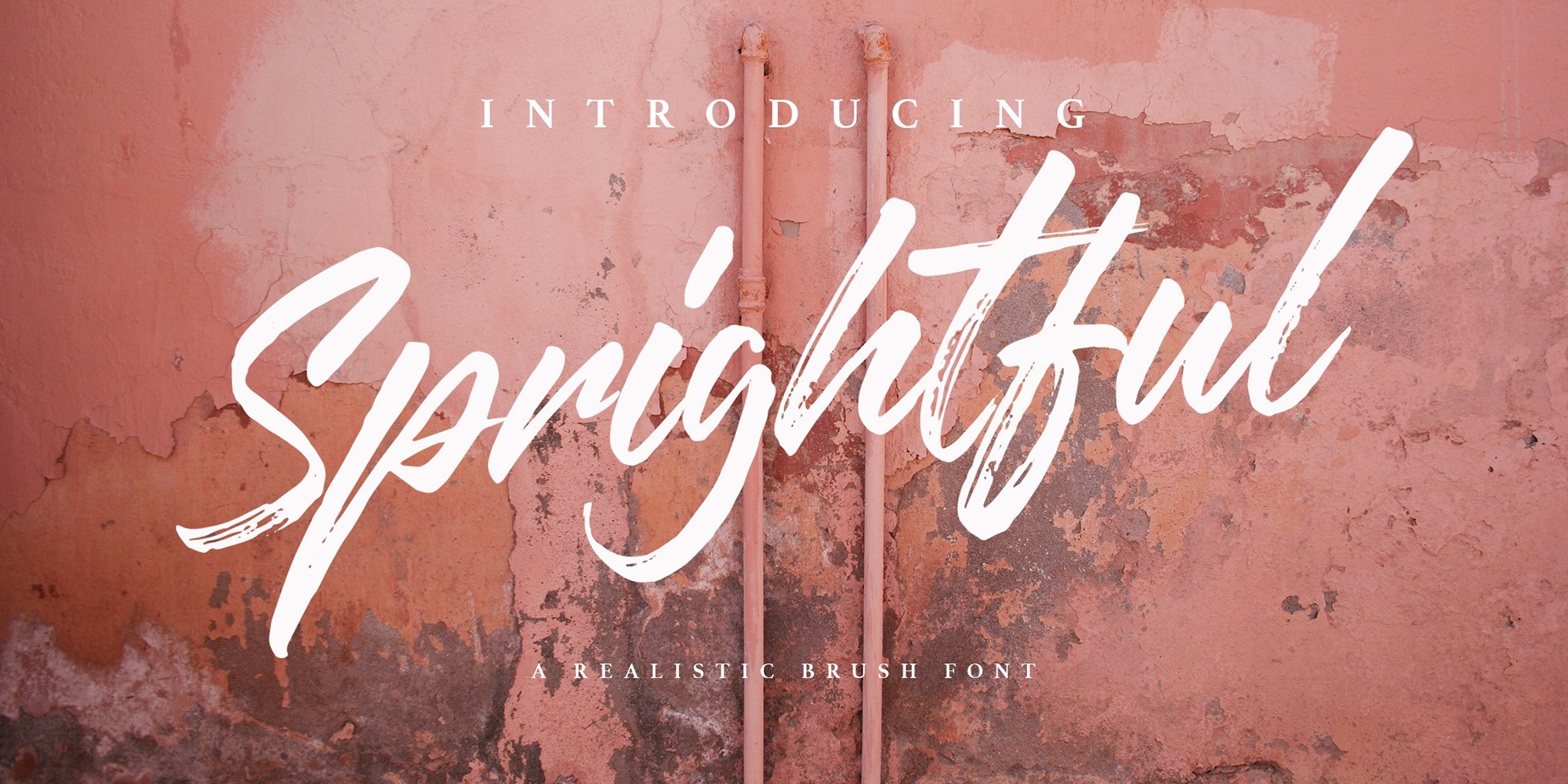
Sprightful Font is perfect for cheerful children's entertainment venues, playful toy store branding, vibrant summer camp materials, energetic youth program communications, joyful birthday party invitations, spirited dance studio signage, lively community festival promotions, and animated cartoon character designs. This vivacious typeface brings infectious energy and spirited joy to any project requiring bouncy, enthusiastic typography with authentic playful appeal and irrepressible cheerfulness.
What makes Sprightful Font exciting is its perfect embodiment of boundless energy and spirited enthusiasm that captures the infectious joy of carefree childhood and the irrepressible optimism found in moments of pure happiness and playful celebration. The font features lively letterforms with bouncing curves and energetic proportions that mirror the animated movement of joyful play and the spirited enthusiasm of youthful energy while maintaining excellent readability for entertainment and youth-focused applications. Its spirited character and playful sophistication make it ideal for children's brands, entertainment venues, and joyful experiences seeking to convey infectious happiness and authentic playful energy. The typeface's sprightly appeal ensures instant recognition of joyful quality and playful authenticity.
The Sprightful Font family includes Light, Regular, Bold, Bouncy, and Animated variants, each maintaining the signature spirited energy while offering different expressions of playful joy and enthusiastic celebration. The family features playful symbols, energetic elements, and spirited decorations that enhance its versatility for children's branding and joyful entertainment projects. These variants provide comprehensive tools for creating authentic spirited typography with genuine playful character and energetic appeal.
Whether you're designing for children's entertainment, youth programs, or joyful celebration brands, Sprightful Font Free Download delivers the spirited authenticity that defines genuine playful typography. Its combination of infectious energy and joyful enthusiasm makes it perfect for communicating spirited fun, playful celebration, and boundless joy with authentic Sprightful Font Free Download energy and unforgettable sprightly presence.